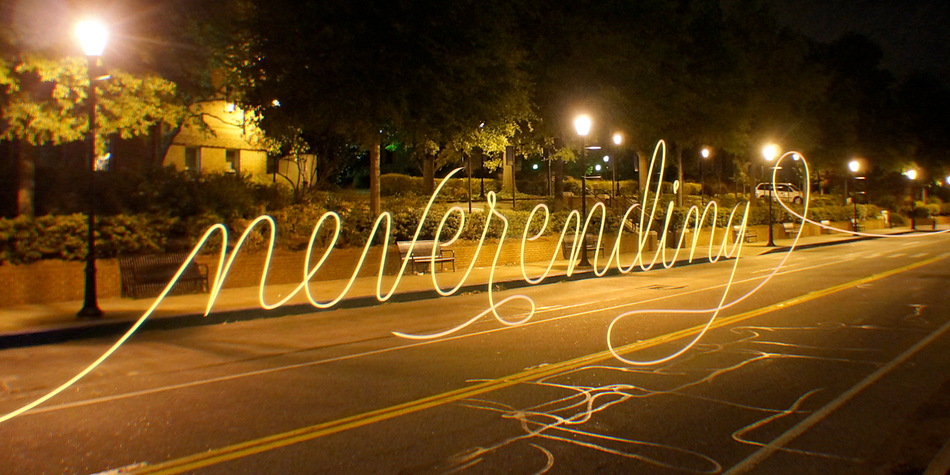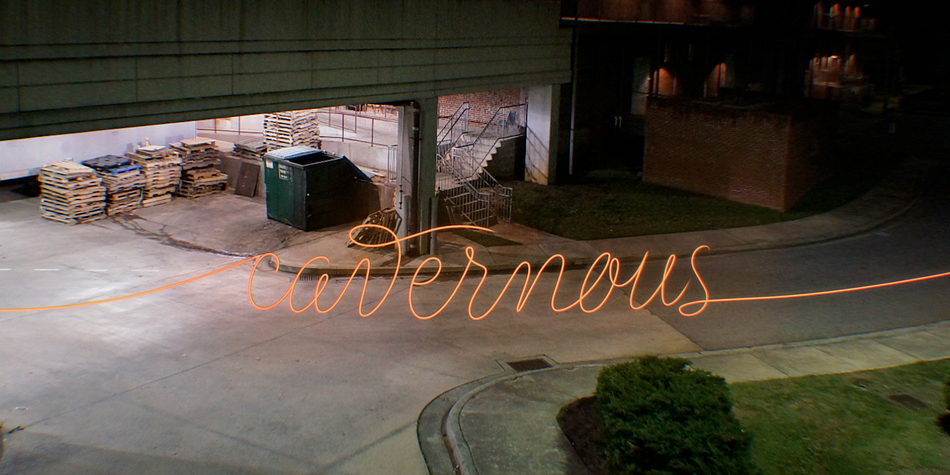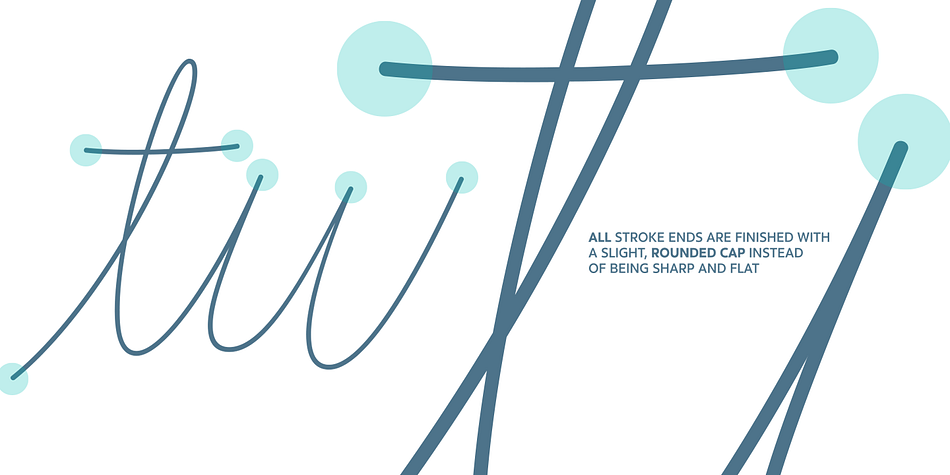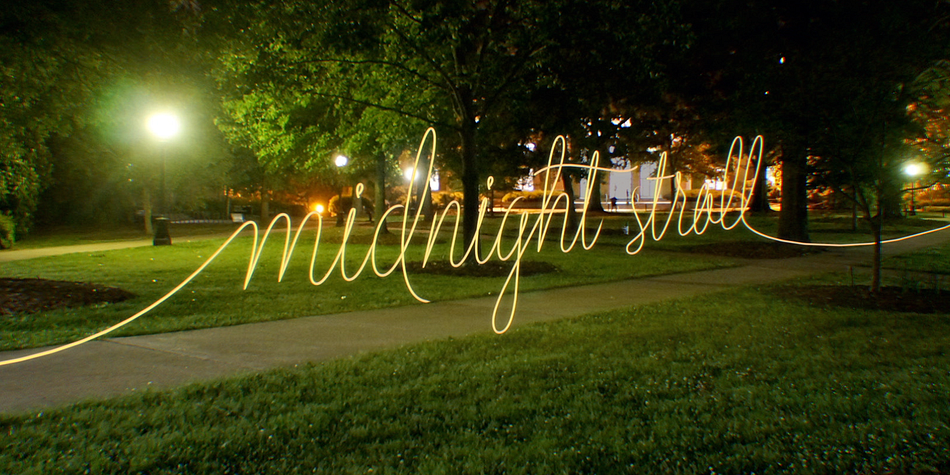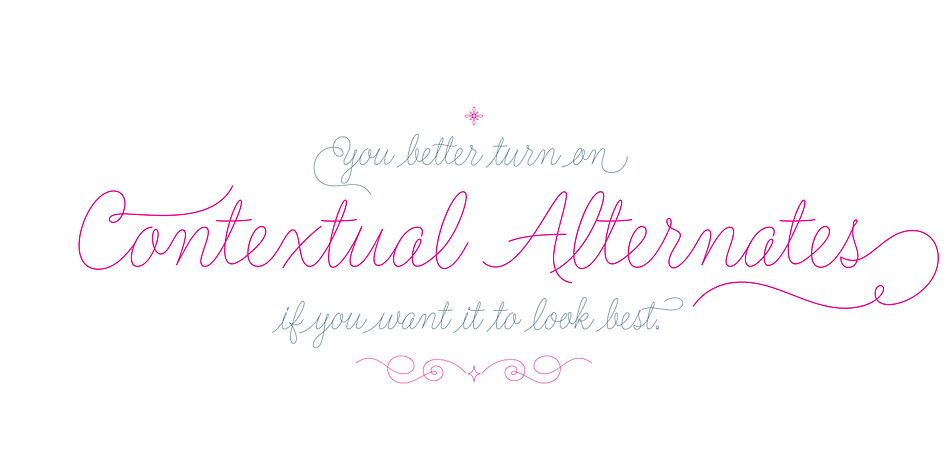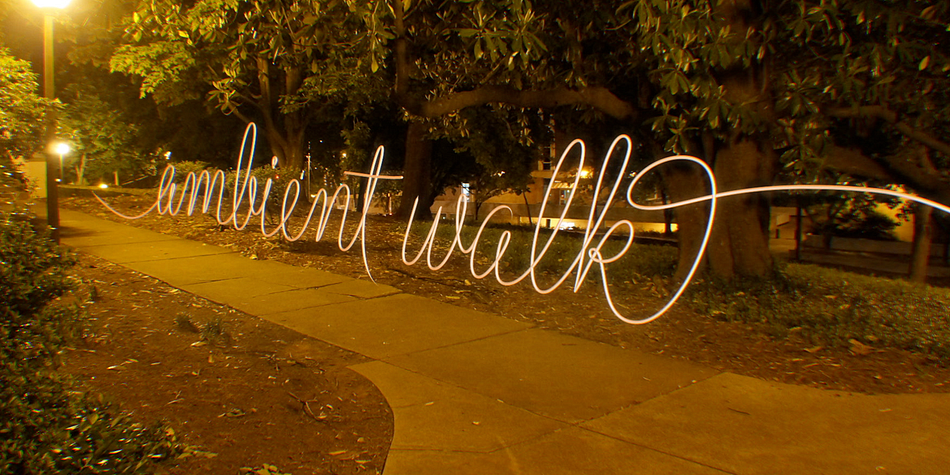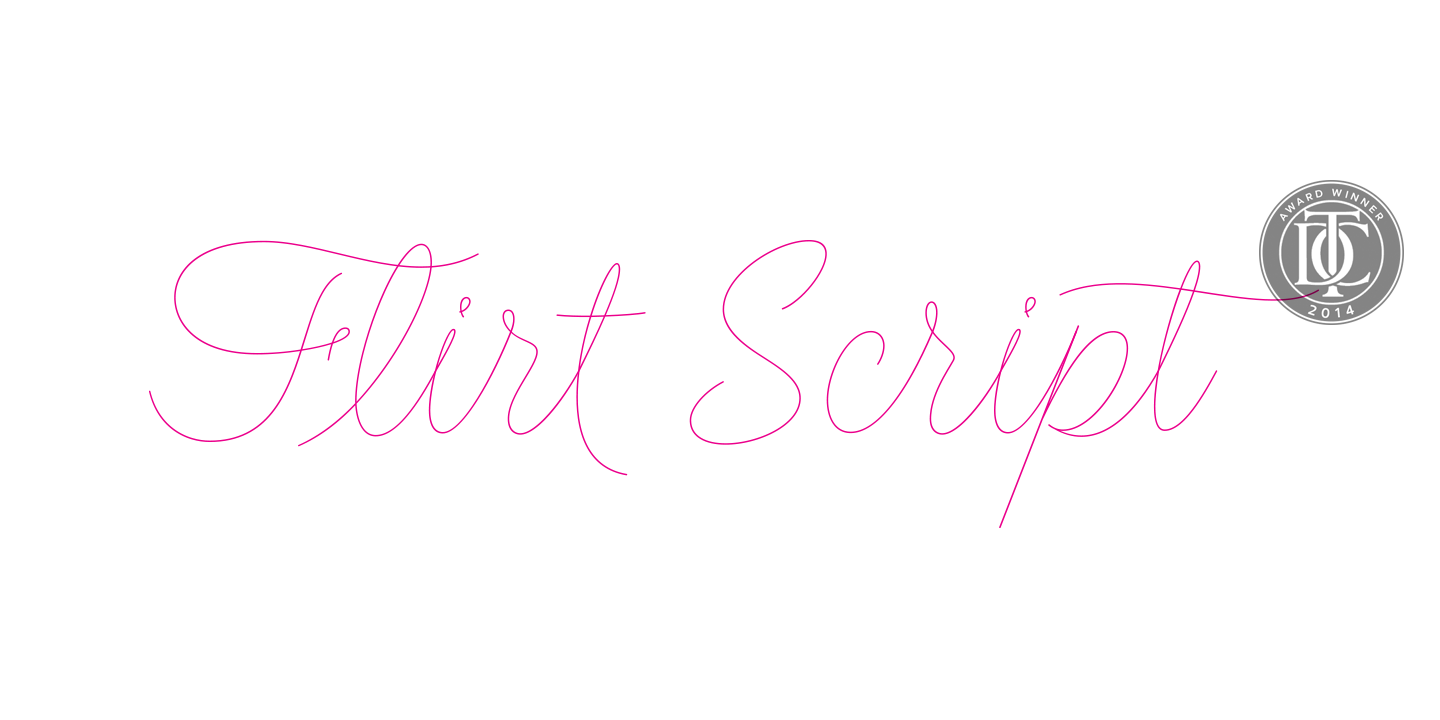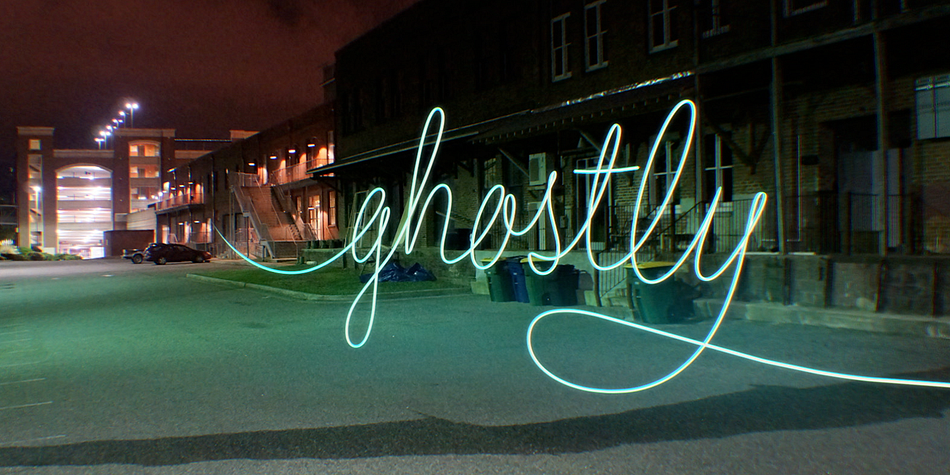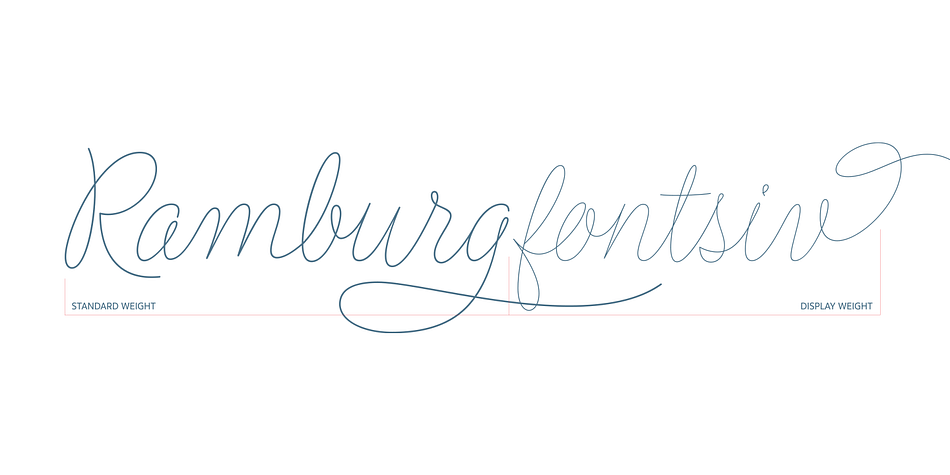
Designed by Neil Summerour, Flirt Script is a display and script font family. This typeface has two styles and was published by Positype.
Young, playful, loopy, flirty. Flirt Script® carves out a niche for itself by concentrating on natural writing tendencies and not the simplified mechanics of script-to-font type design. A free-flowing monoline, the two weight typeface exploits the common letter-to-letter transitions of the typical cursive hand by utilizing three variable-height strike points controlled within the machinations of OpenType Contextual Alternates. The ease of writing (and the decisions made from letter to letter) is reflected as the structure and cadence of the writing evolves as the user types.